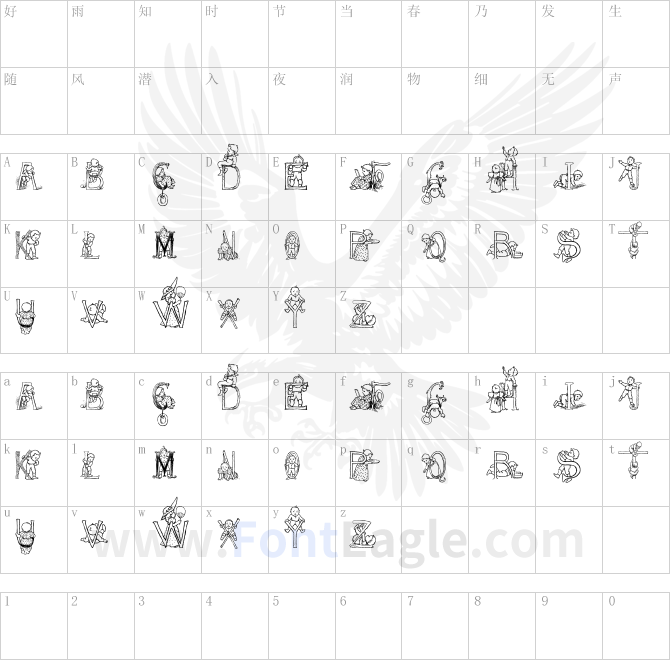
- Font name:HFF Kids Stuff
- Font Subfamily ID:HFF: HFF Kids Stuff: 2009
- Font Full Name:HFF Kids Stuff
- Postscript:HFFKidsStuff
- Font Copyright:HFF Kids Stuff 2009 by Have Fun with Fonts. Based on the alphabet created by Mary Mapes Dodge in St. Nicholas an Illustrated Magazine for Young People XXXIV: Part 2: 667. Images made available by Educational Technology Clearinghouse, Florida Center for Instructional Technology, College of Education, University of South Florida. This font is free to use, share and enjoy.